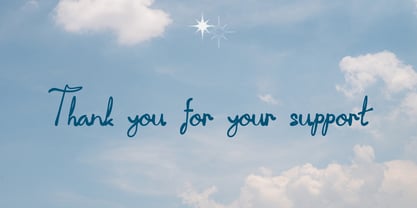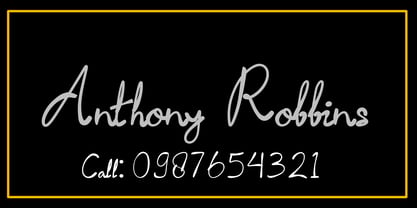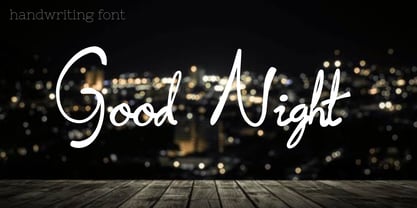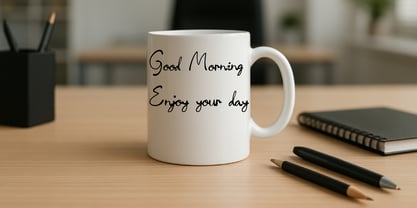
Romesa
by Eroane Creative
Romesa is a modern script font that combines elegance and natural handwriting flow. Its smooth curves and stylish strokes create a refined yet approachable look, making it perfect for projects that require a personal and sophisticated touch.
Designed with balanced proportions and consistent letterforms, Romesa works beautifully in both large displays and smaller text. It is ideal for branding, wedding invitations, packaging design, quotes, social media graphics, and any creative project that needs a graceful handwritten feel.
With its versatile style, Romesa brings warmth and personality to your typography. Whether you want to highlight elegance, creativity, or authenticity, Romesa is crafted to elevate your design with timeless charm.
Designers: Erick Rismawan
Foundry: Eroane Creative